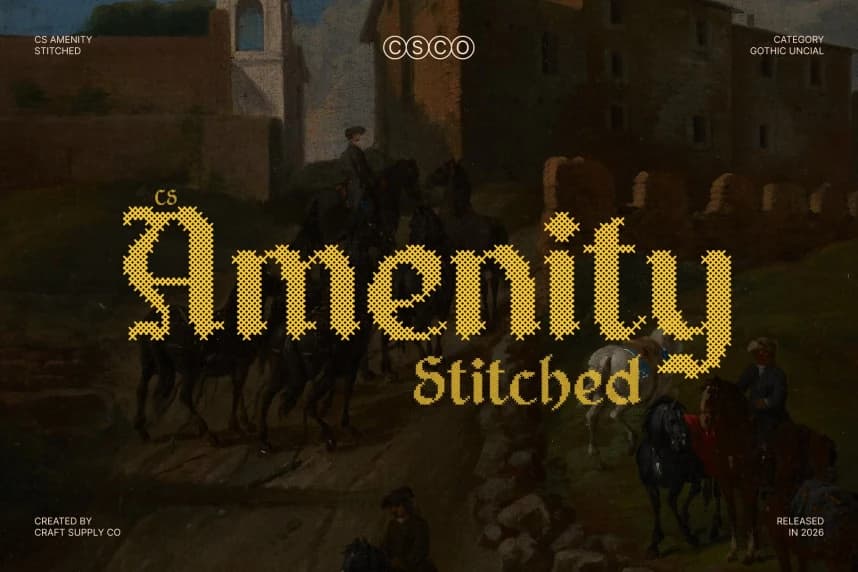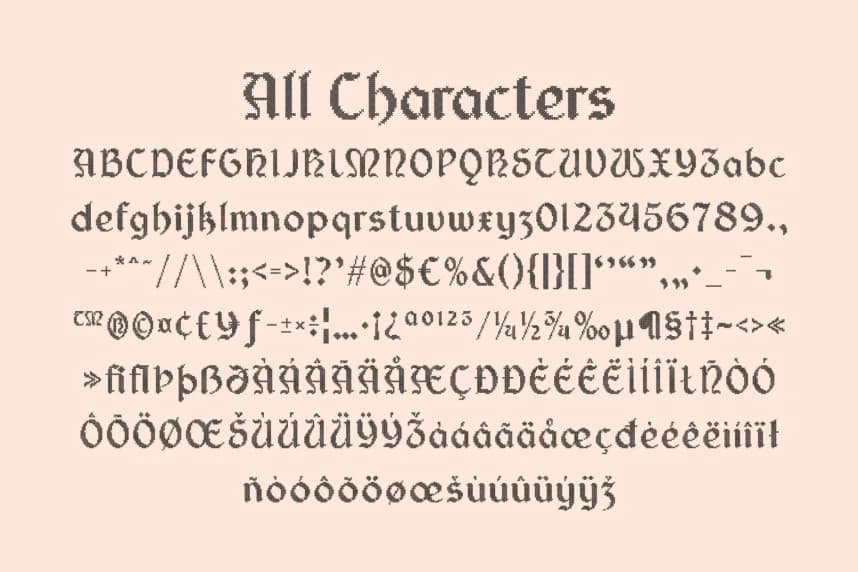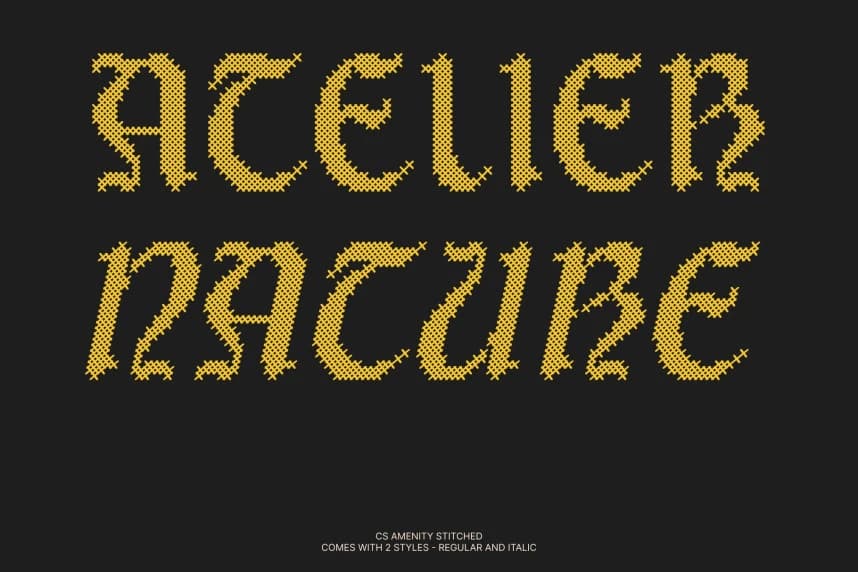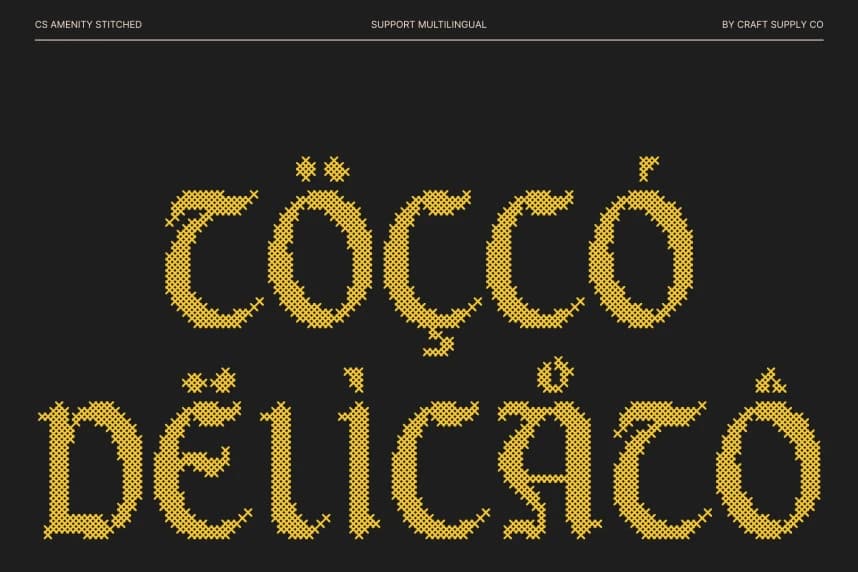
CS Amenity Stitched Typeface
CS Amenity Stitched – A Gothic Uncial Font with Medieval Elegance. A Blend of Uncial Grace and Gothic Strength This is a display font that beautifully merges the flowing curves of Uncial lettering with the bold, structured elements of Gothic typography.